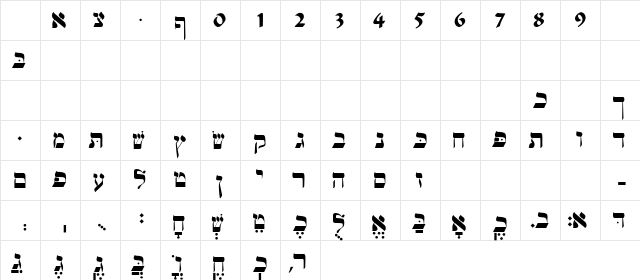
Complete Alefbet Regular glyph index. Displaying only characters natively supported by Alefbet Regular font.
Design Context for Alefbet
Alefbet is a composed and adaptable typeface that performs quietly and consistently across a wide range of design contexts.